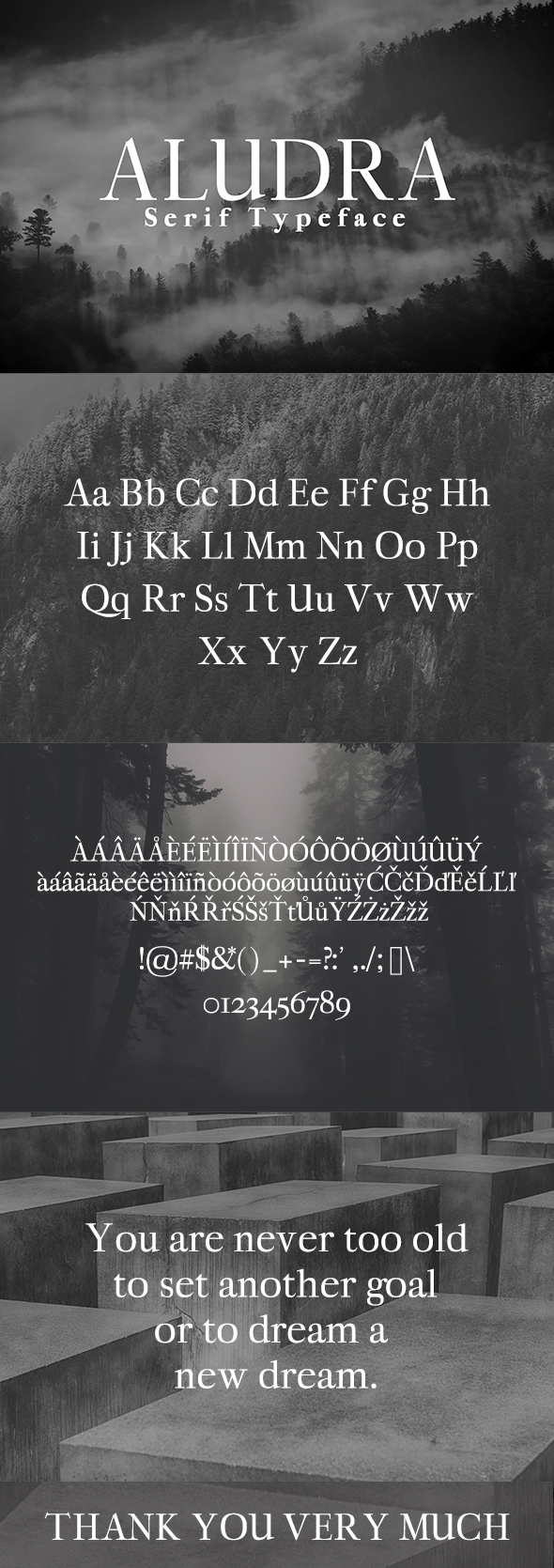
Aludra Serif Typeface is a beautiful set of display fonts. Aludra family contains 11 weights, from Light to Bold. Aludra is great for headlines, posters, branding, packaging, presentations, short texts.
Features
- Serif Typeface
- Regular, Light, Thin, Bold, Black, Distorted, Extra Bold & Italic Weights
- Uppercase Multilingual Letters
- Lowercase Multilingual Letters
- Numbers & Punctuation
- Alternative